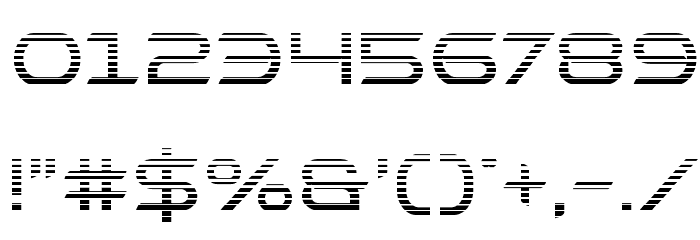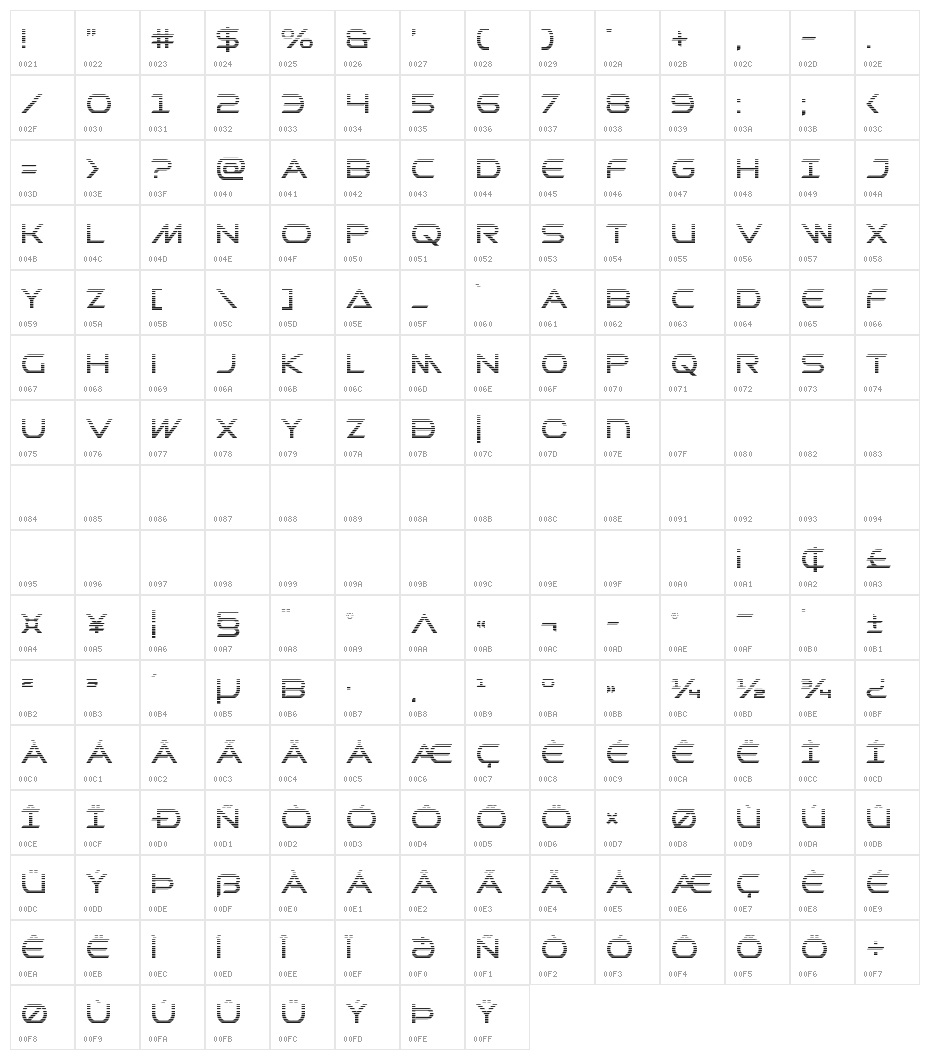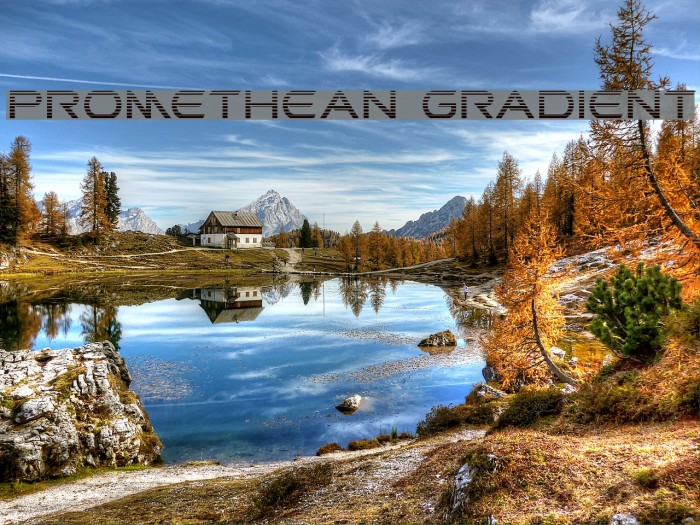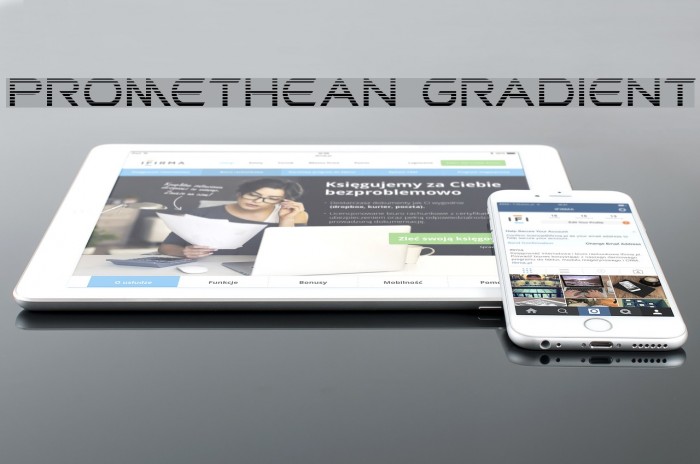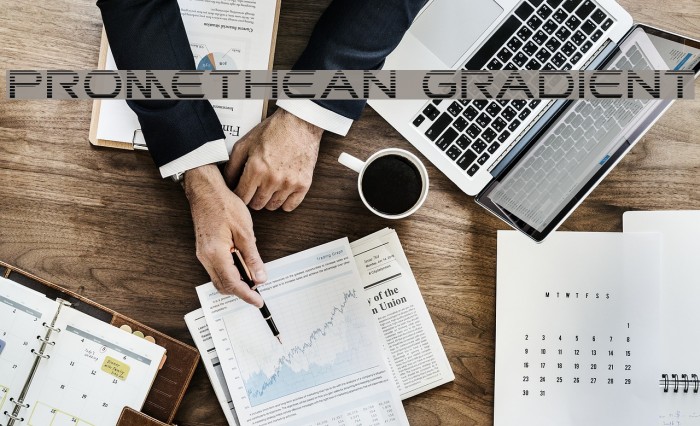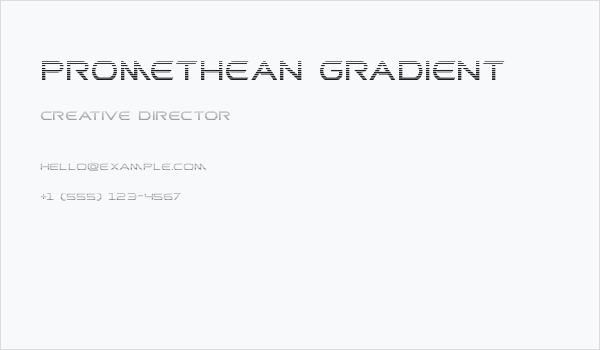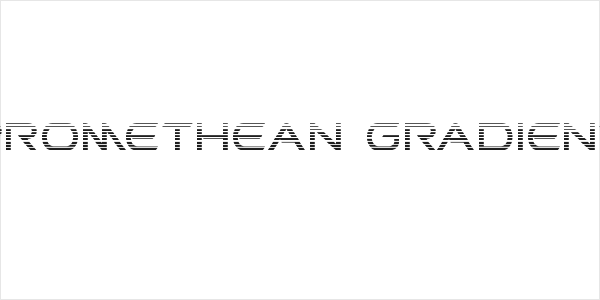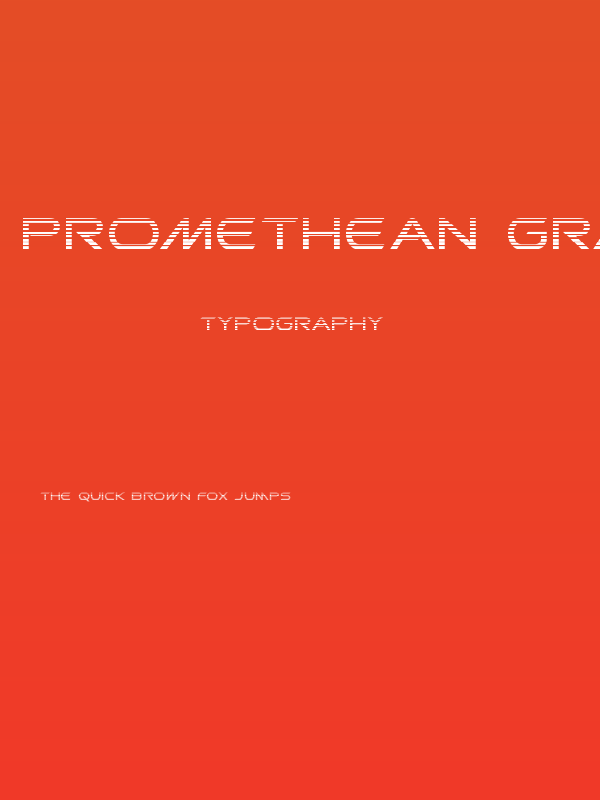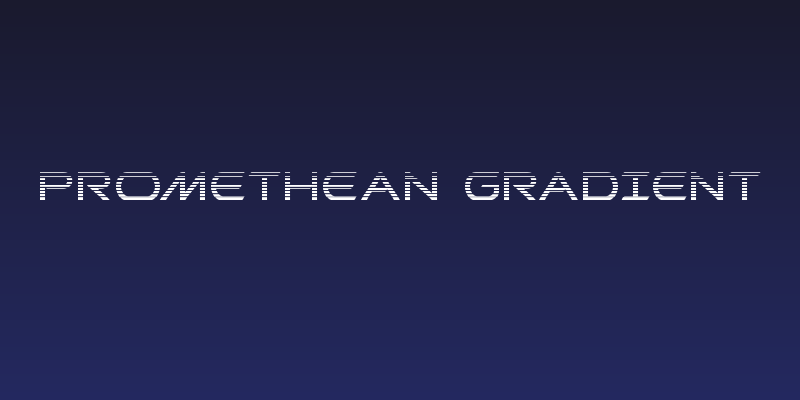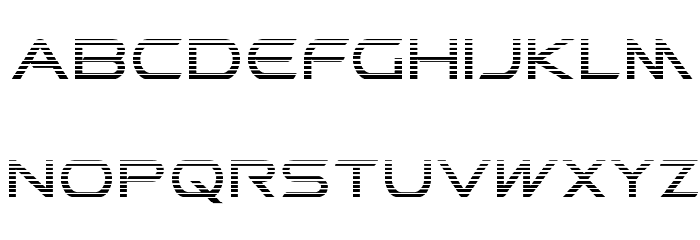
Promethean Gradient Font
Promethean Gradient Description
This font features a modern, futuristic design with a unique gradient effect created by horizontal lines that vary in thickness. The characters are uppercase and lowercase letters, numbers, and a selection of special characters. The design is sleek and geometric, with a sense of movement and energy. The horizontal lines give it a dynamic look, making it stand out in digital and print media. The font maintains a consistent style across all characters, ensuring readability while adding a distinctive visual appeal.